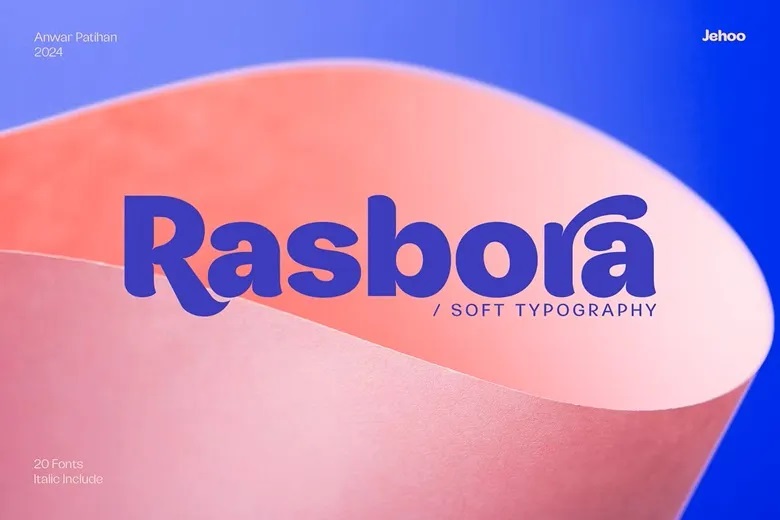
JHC Rasbora is a carefully designed typeface with a soft, relaxed look. Its curved letterforms create a gentle, flowing style that feels inviting and works well in many settings. JHC Rasbora comes in 10 weights, from Thin to Extrablack. Each weight keeps the font’s soft look while offering different levels of emphasis and impact.
You can use JHC Rasbora for headlines, body text, or creative projects. It adds a relaxed but polished touch to designs, making it a good fit for both branding and editorial layouts.
JHC Rasbora Sans Serif Font